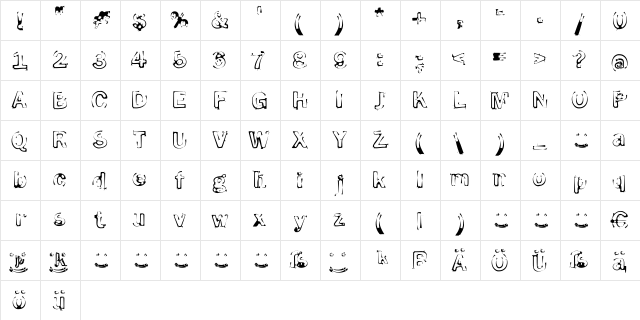
Smoke-Disturbed Regular Free Font
Smoke-Disturbed Regular
Design Context for Smoke-Disturbed
Smoke-Disturbed is a composed and adaptable typeface that performs quietly and consistently across a wide range of design contexts.